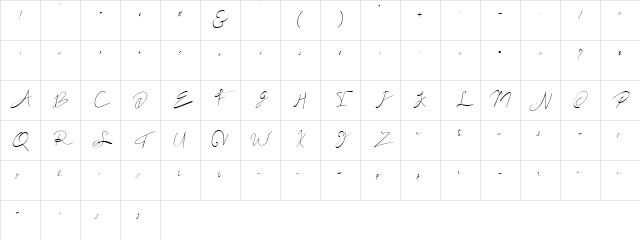
Peylon Viggo Regular
Foundry: Suandana Ipandemade
Designer: Suandana Ipandemade
Design Context for Peylon Viggo
Peylon Viggo is a composed and adaptable typeface that performs quietly and consistently across a wide range of design contexts.